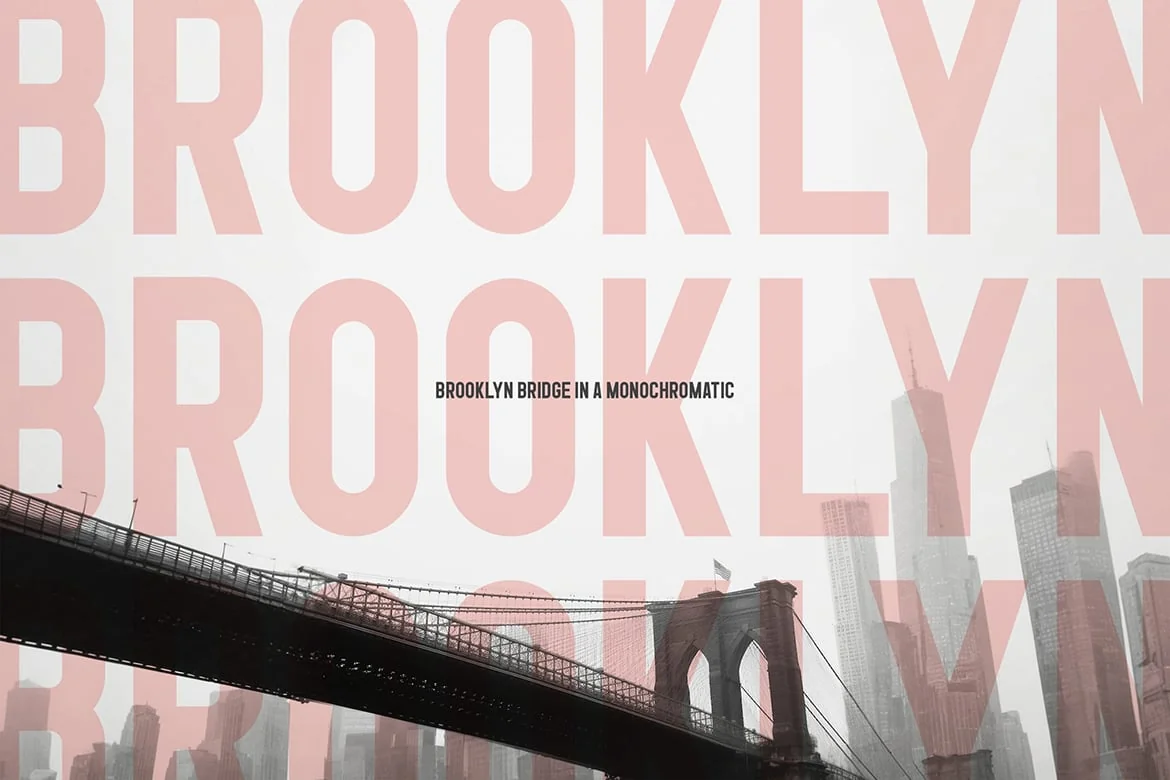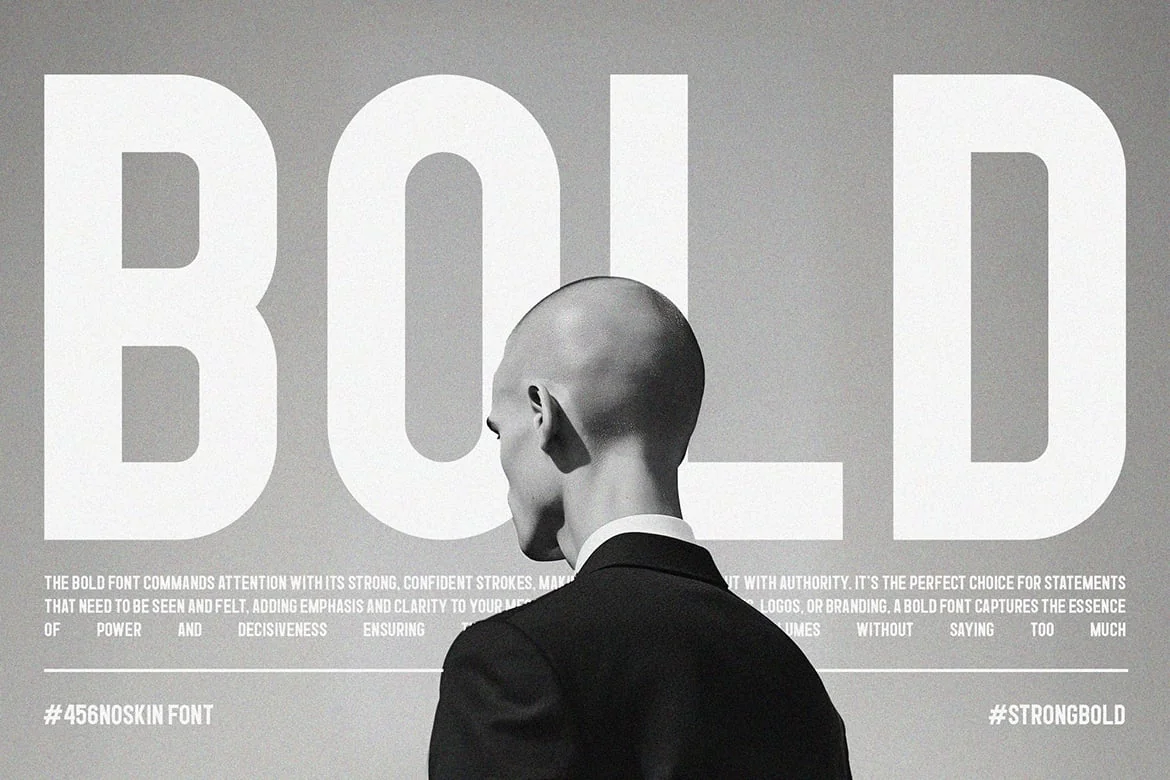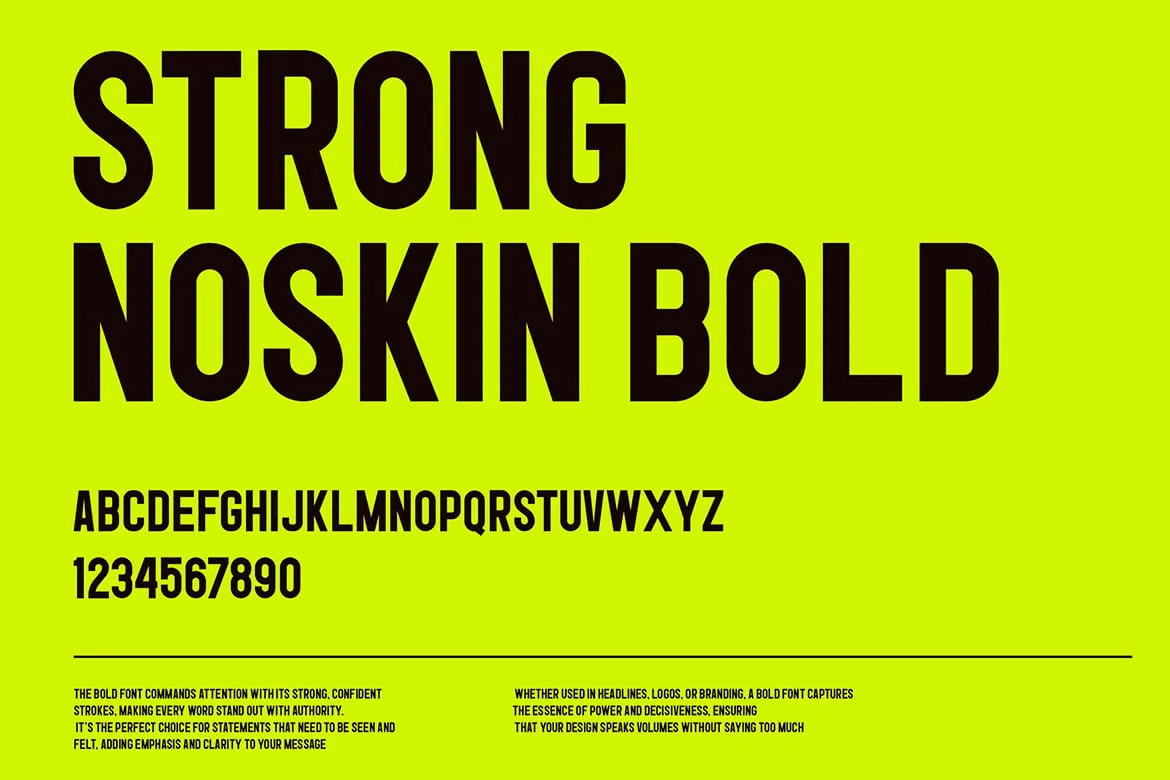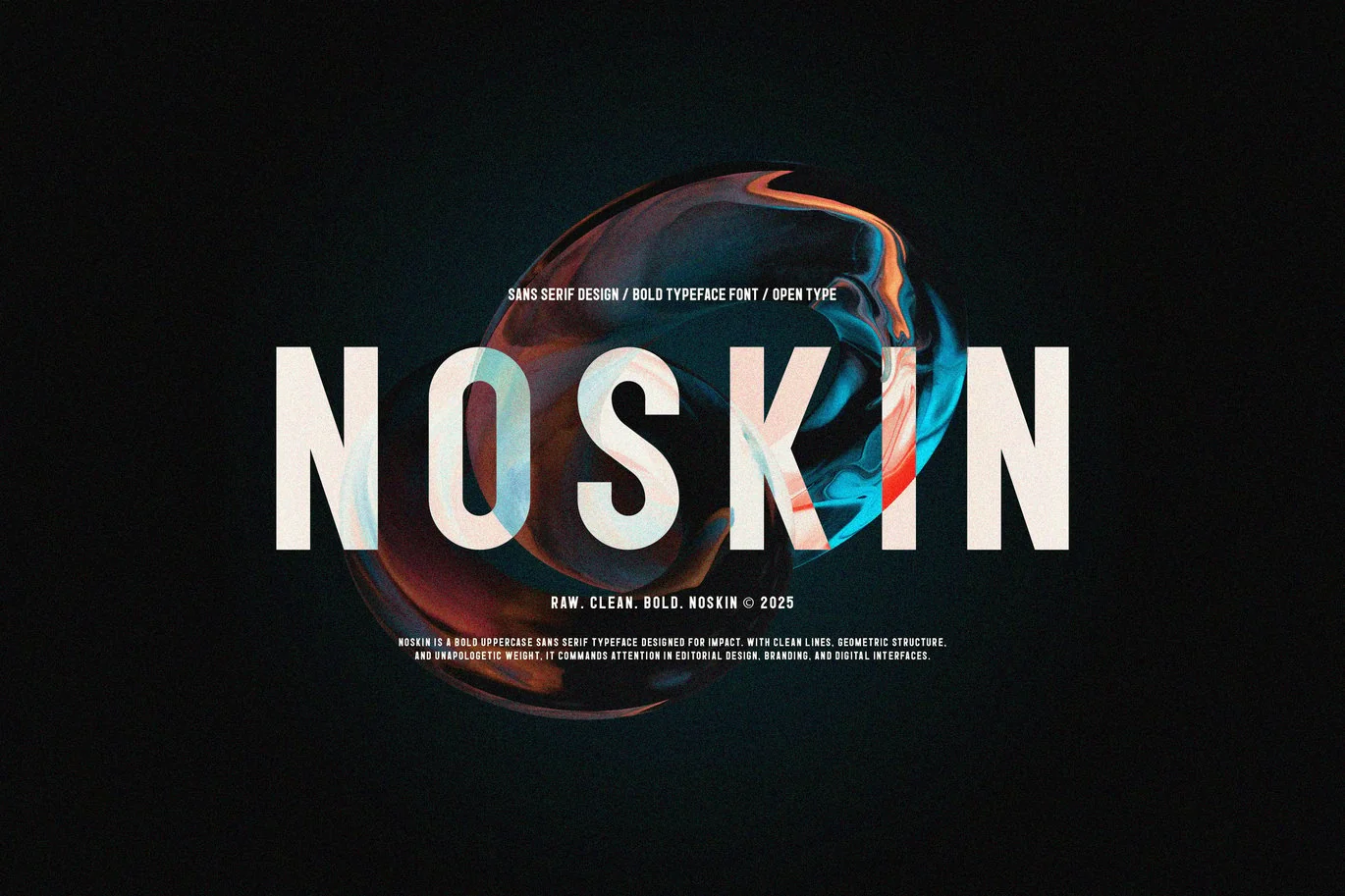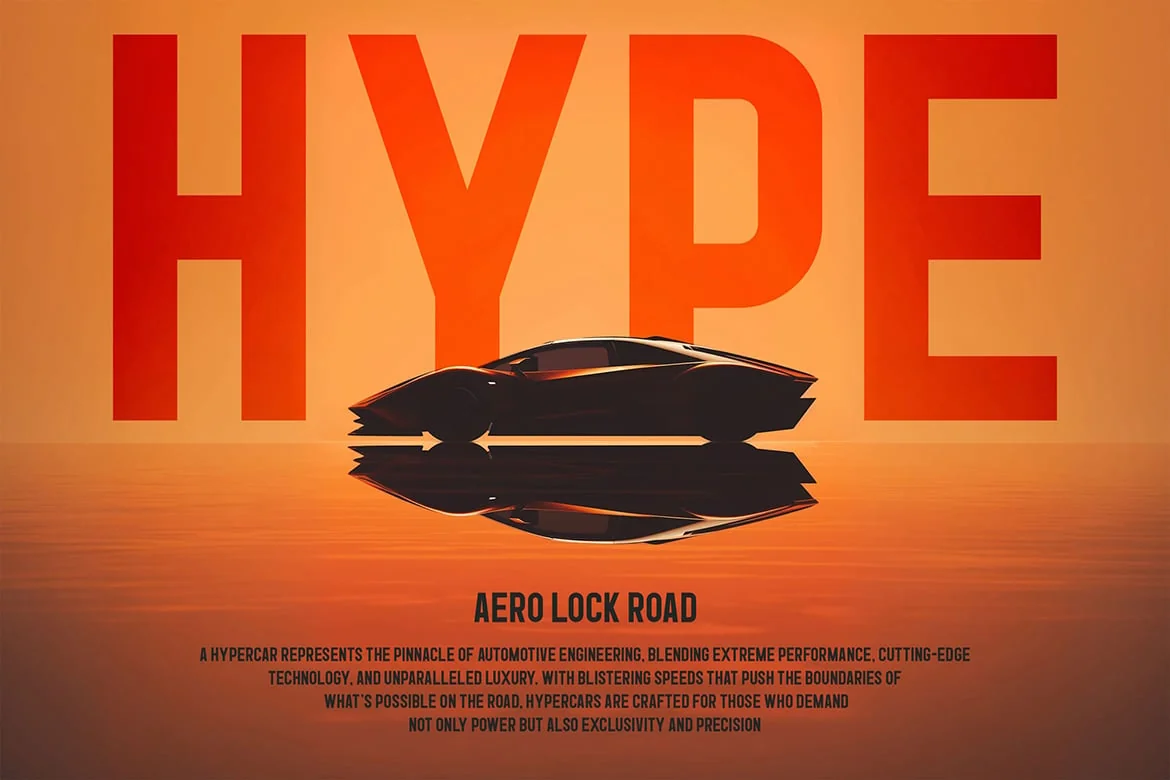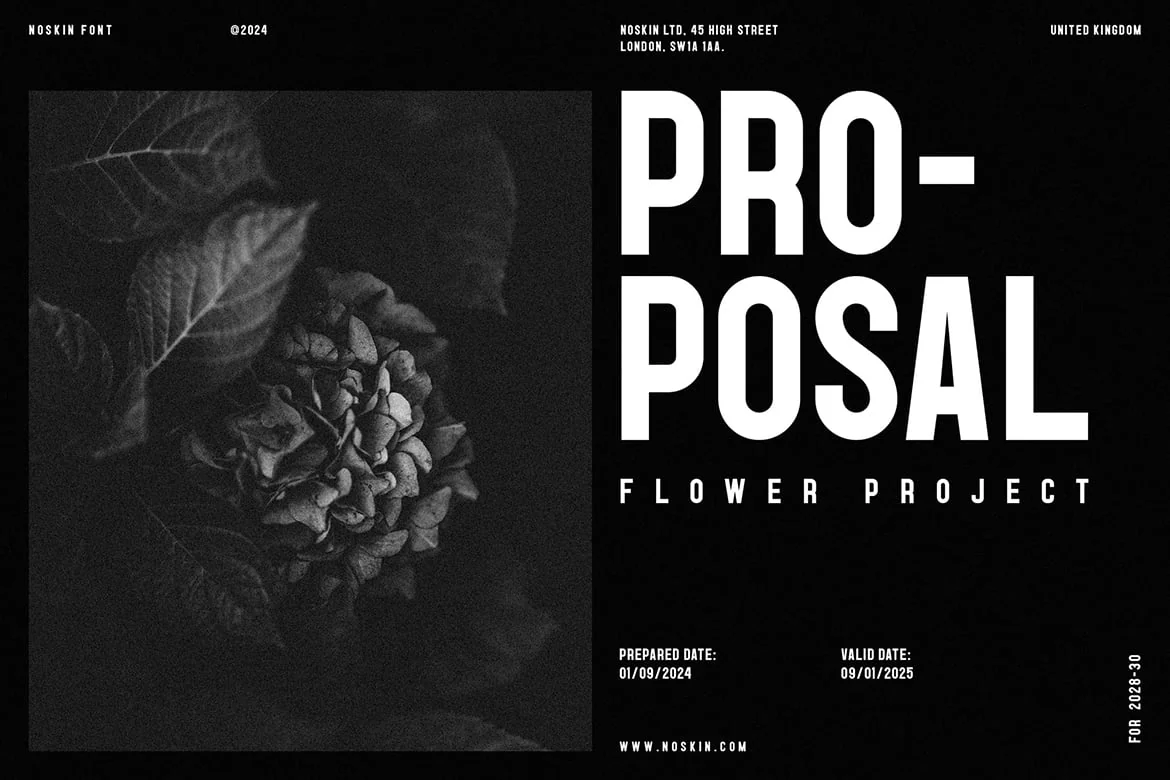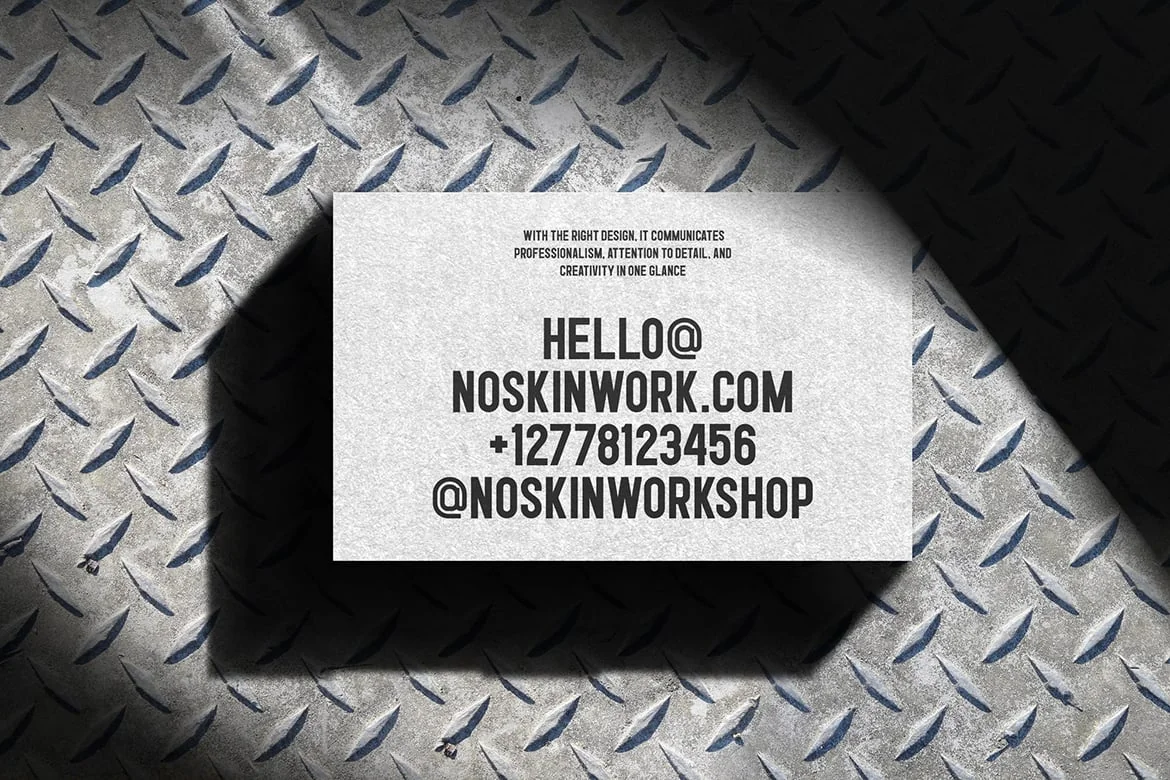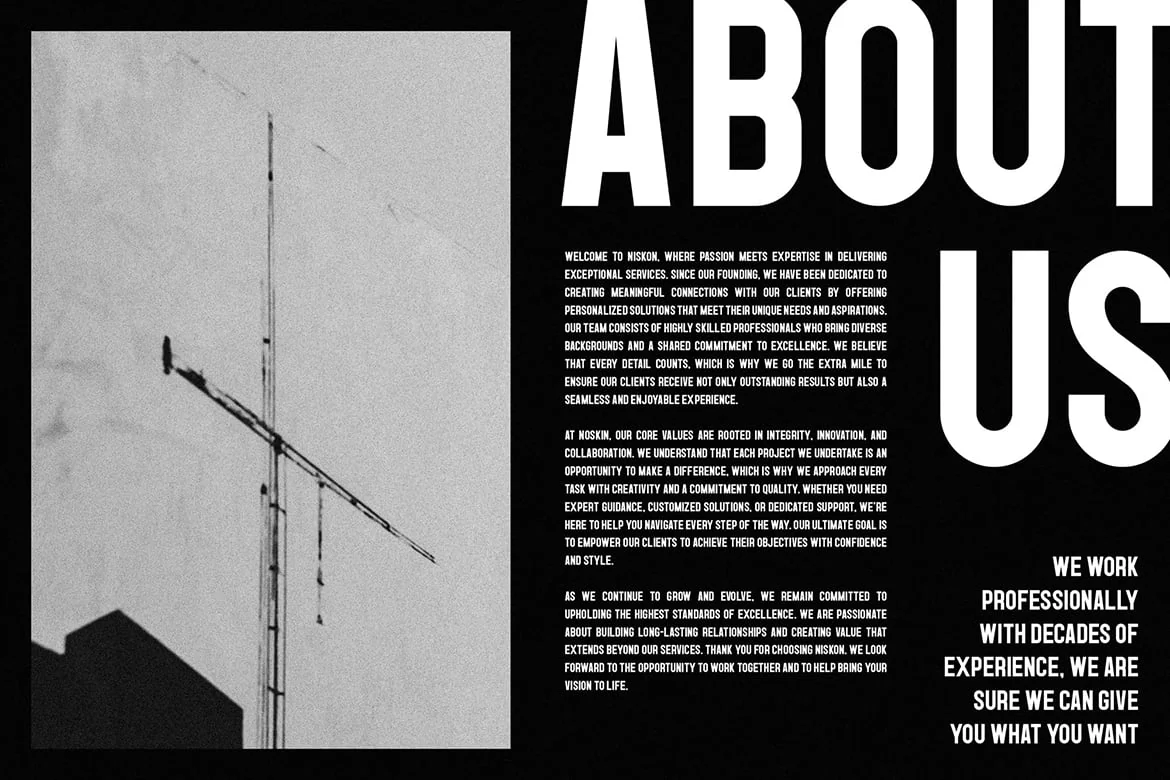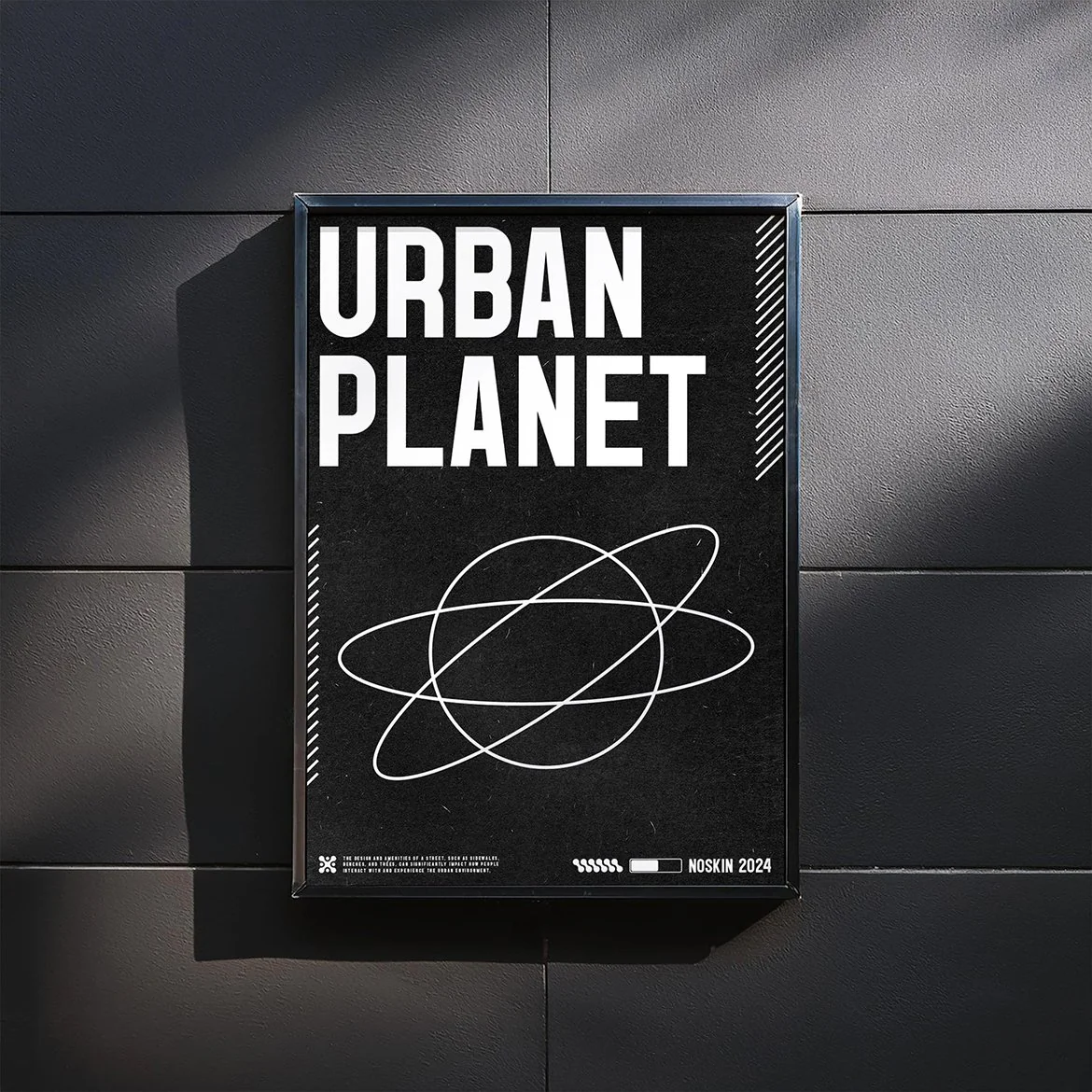
Noskin Bold Font
Noskin Bold is a clean and confident uppercase display font with bold weight and balanced proportions. Designed for modern branding, striking headlines, posters, and logos, it delivers clarity and strength without overpowering your layout. A bold font that blends simplicity with style.